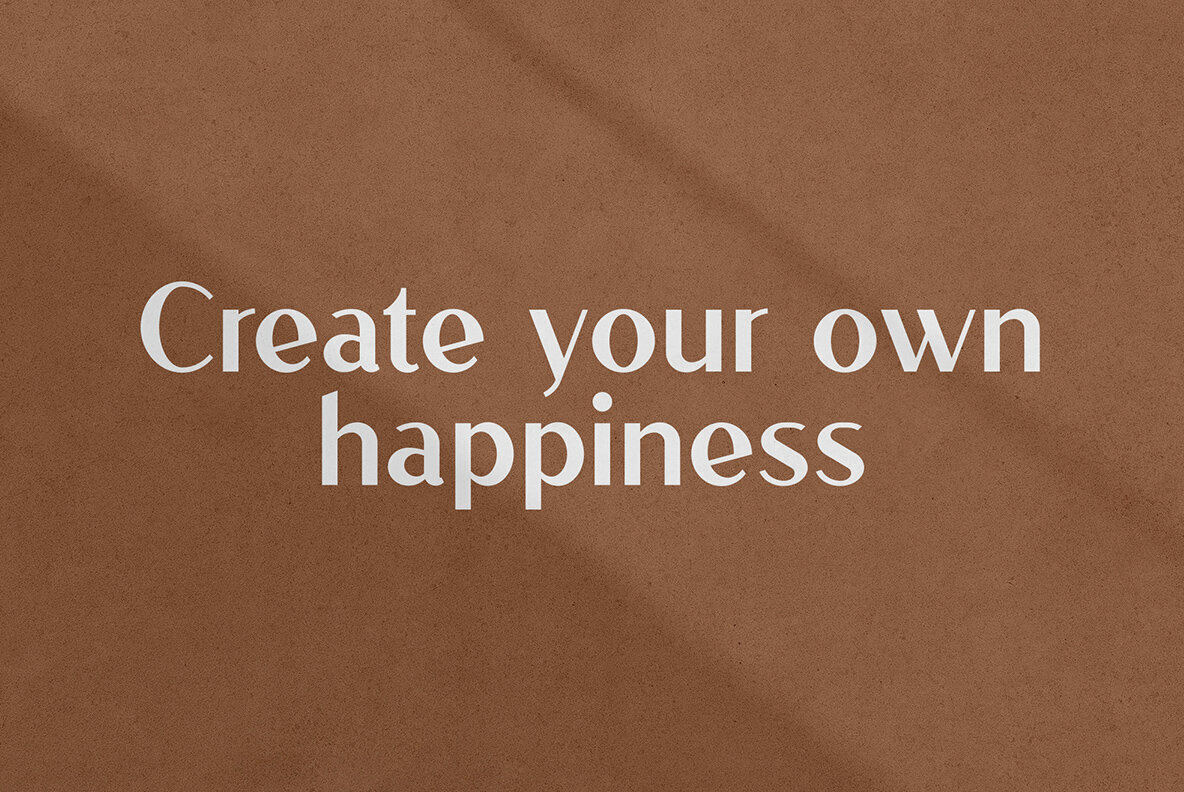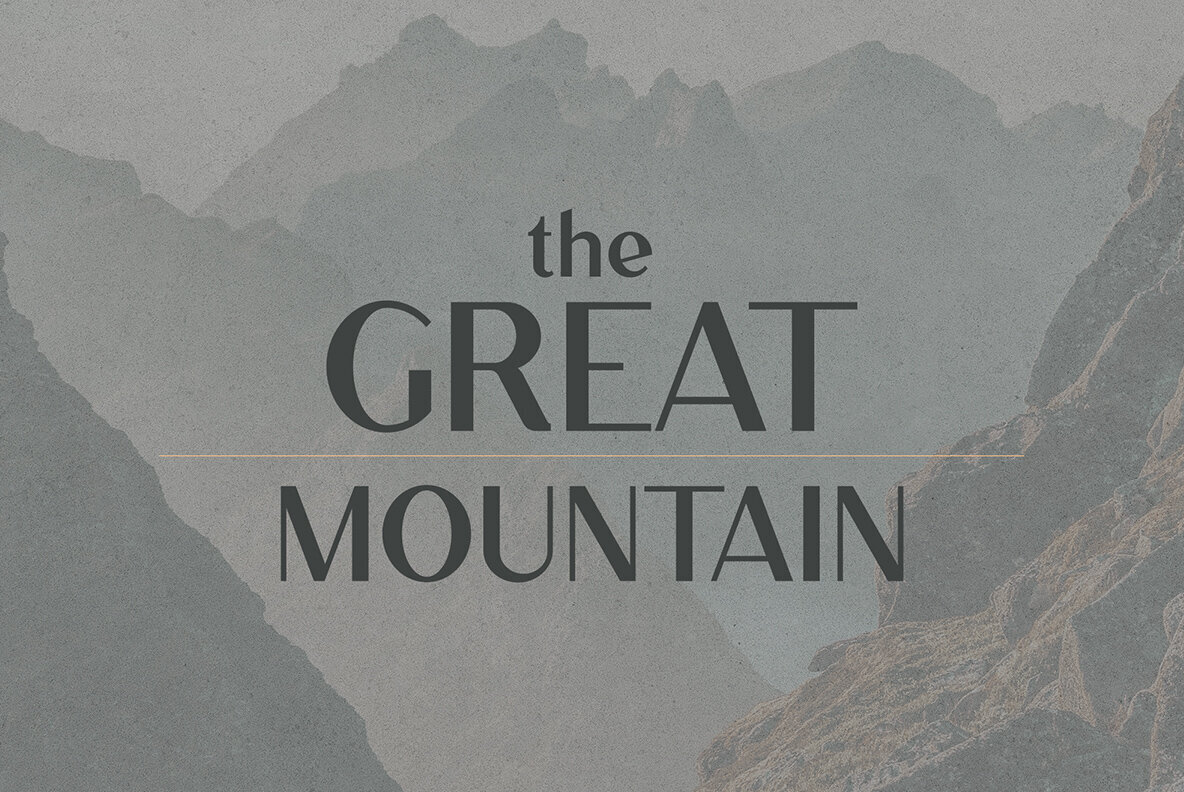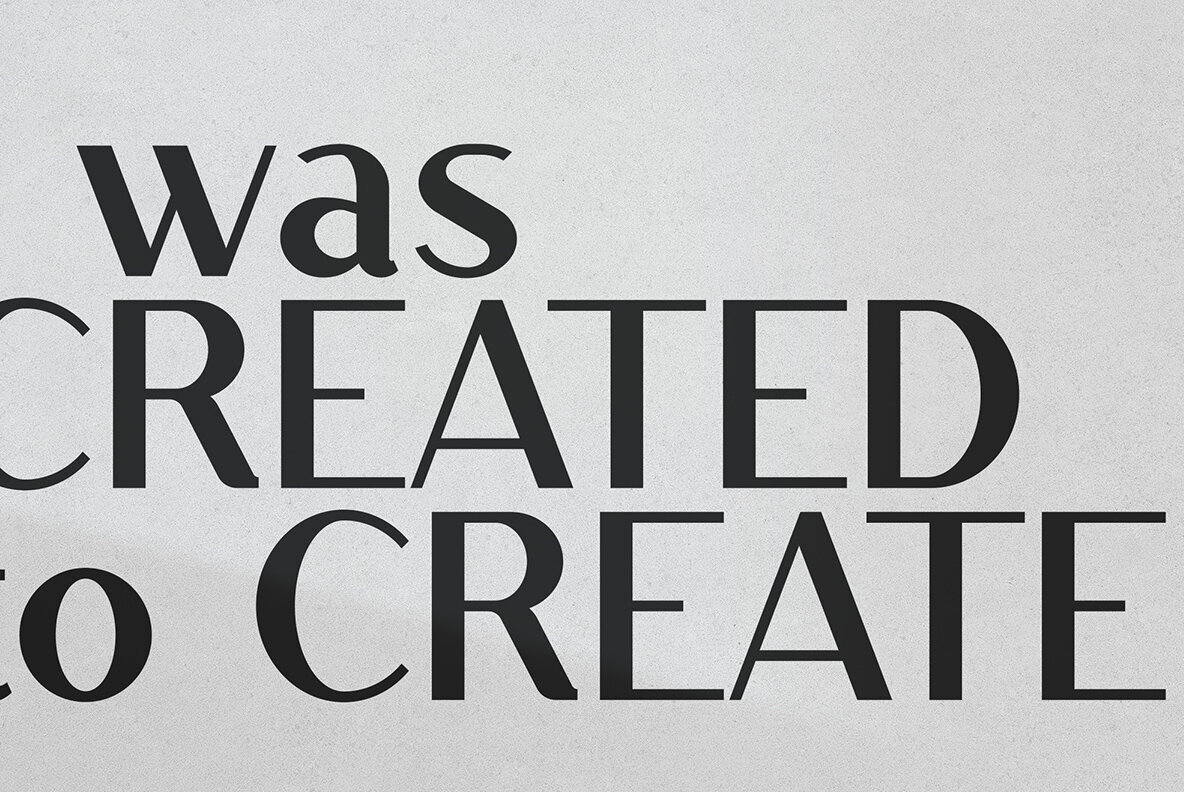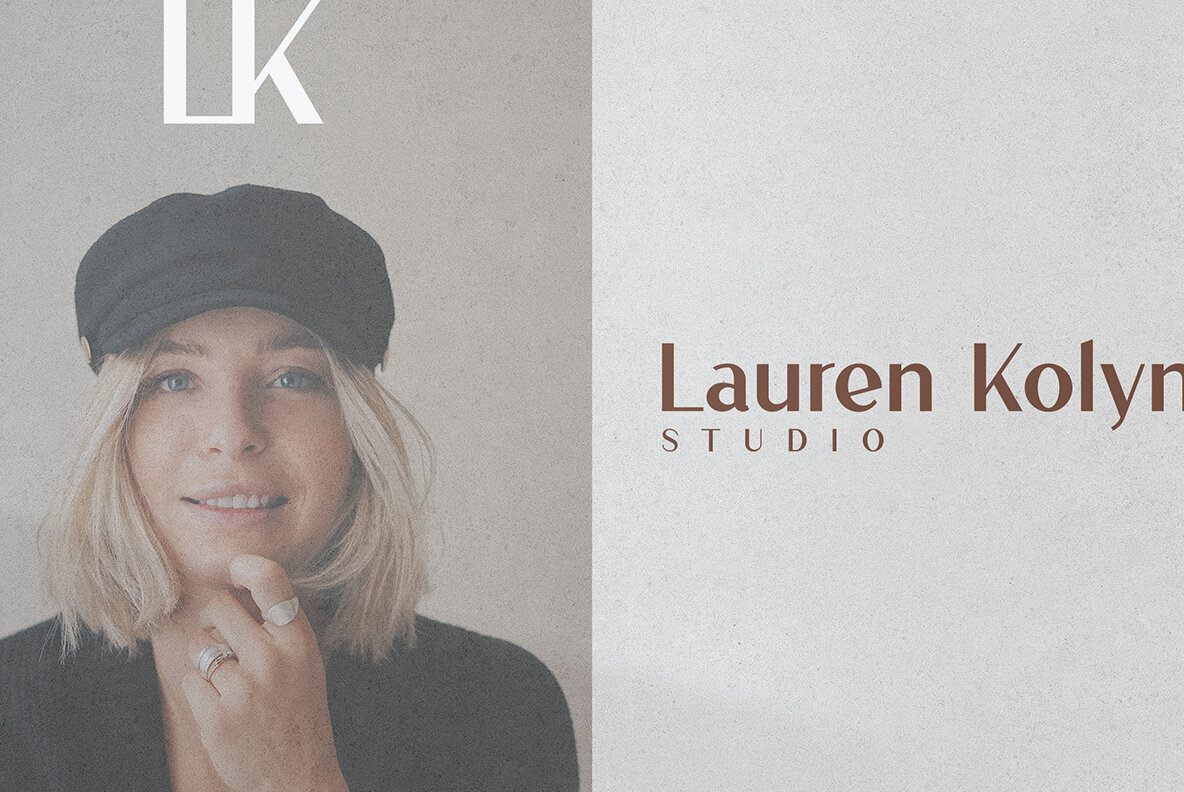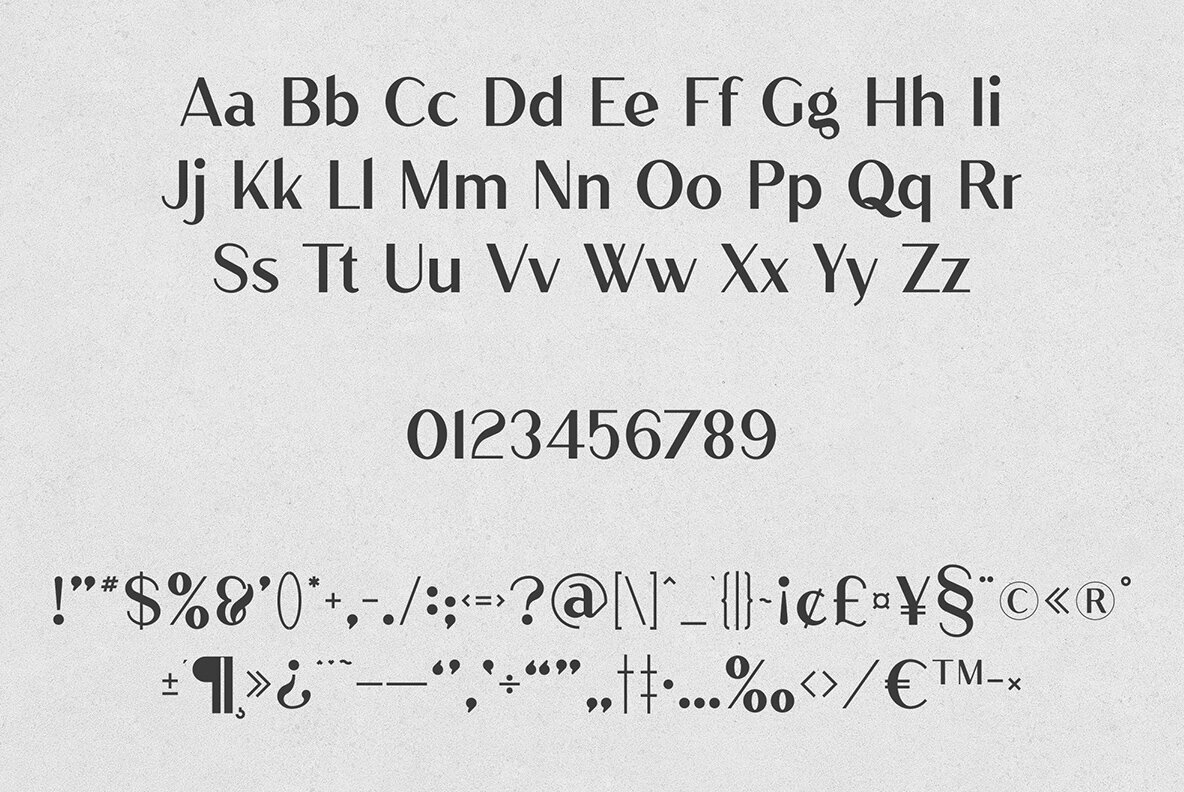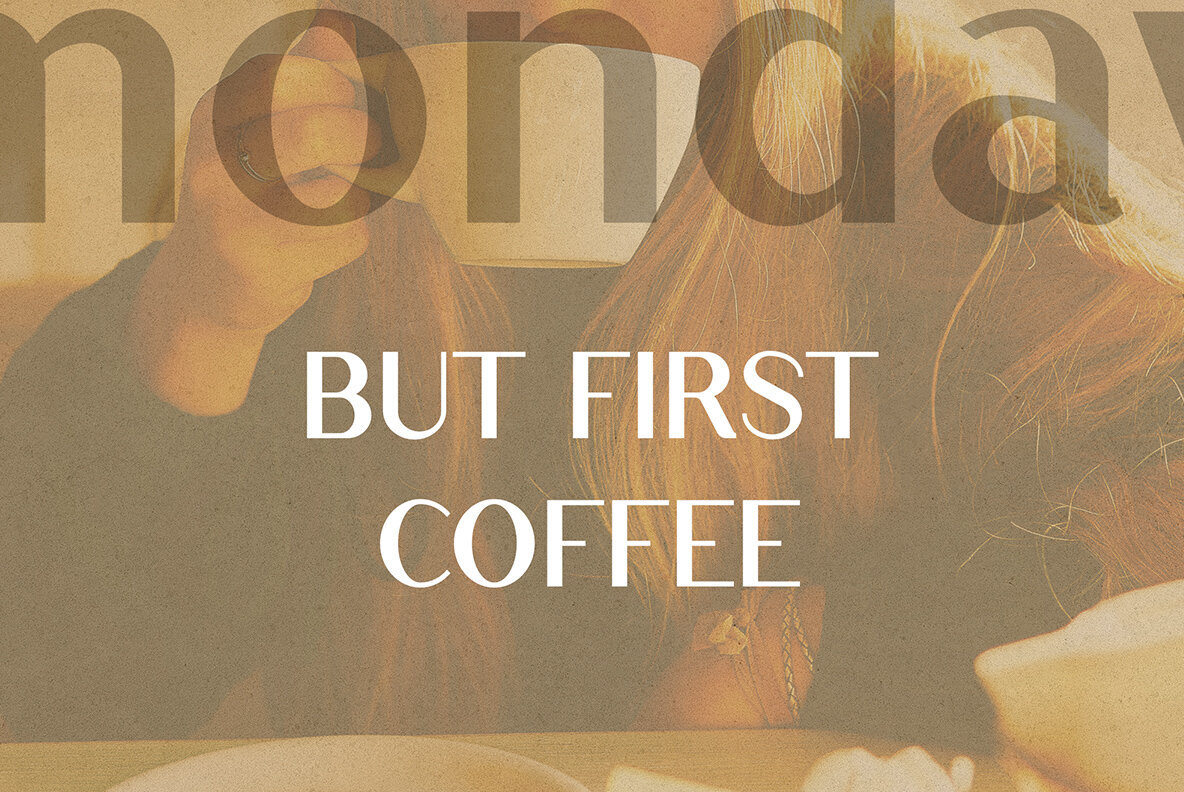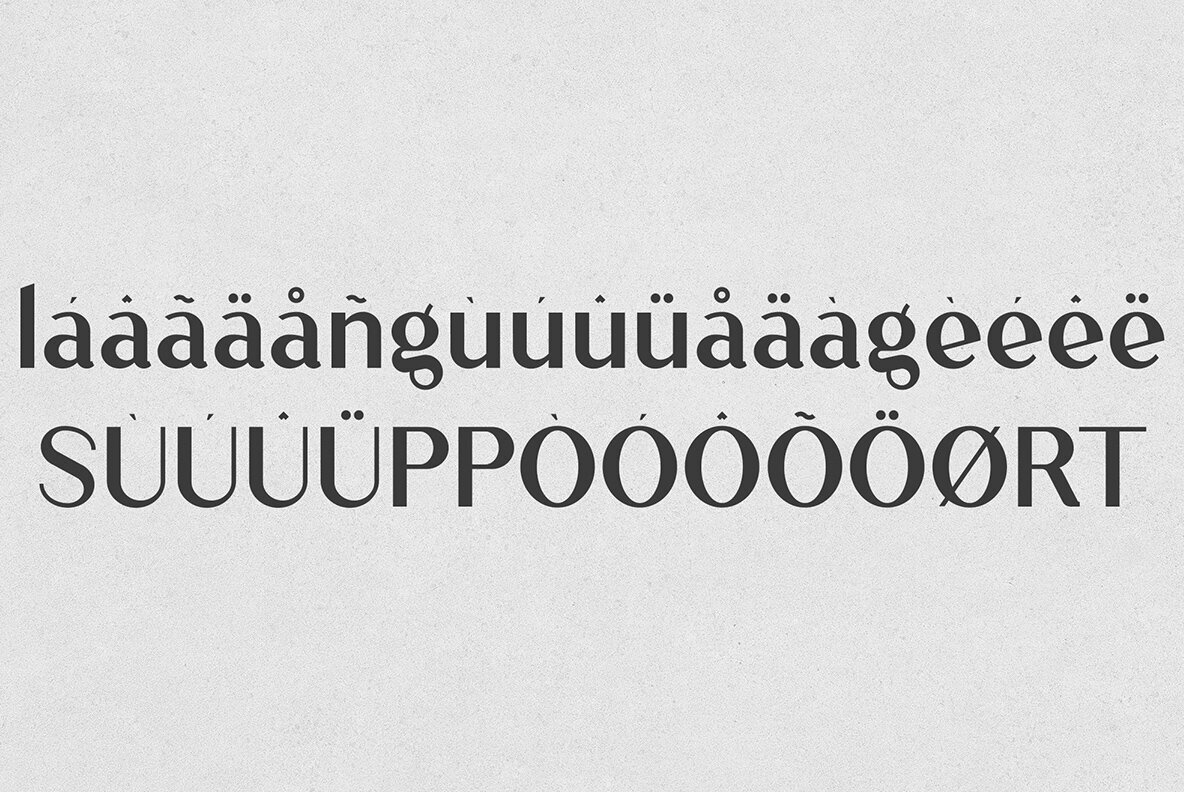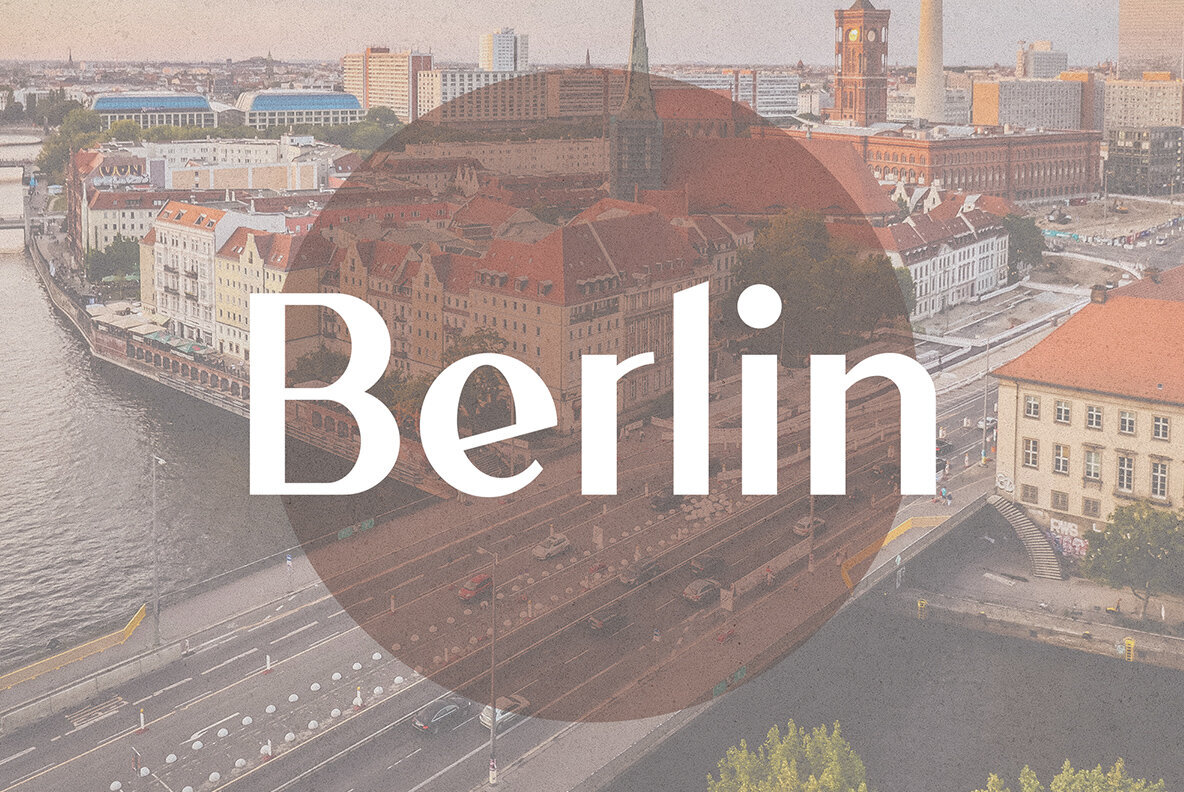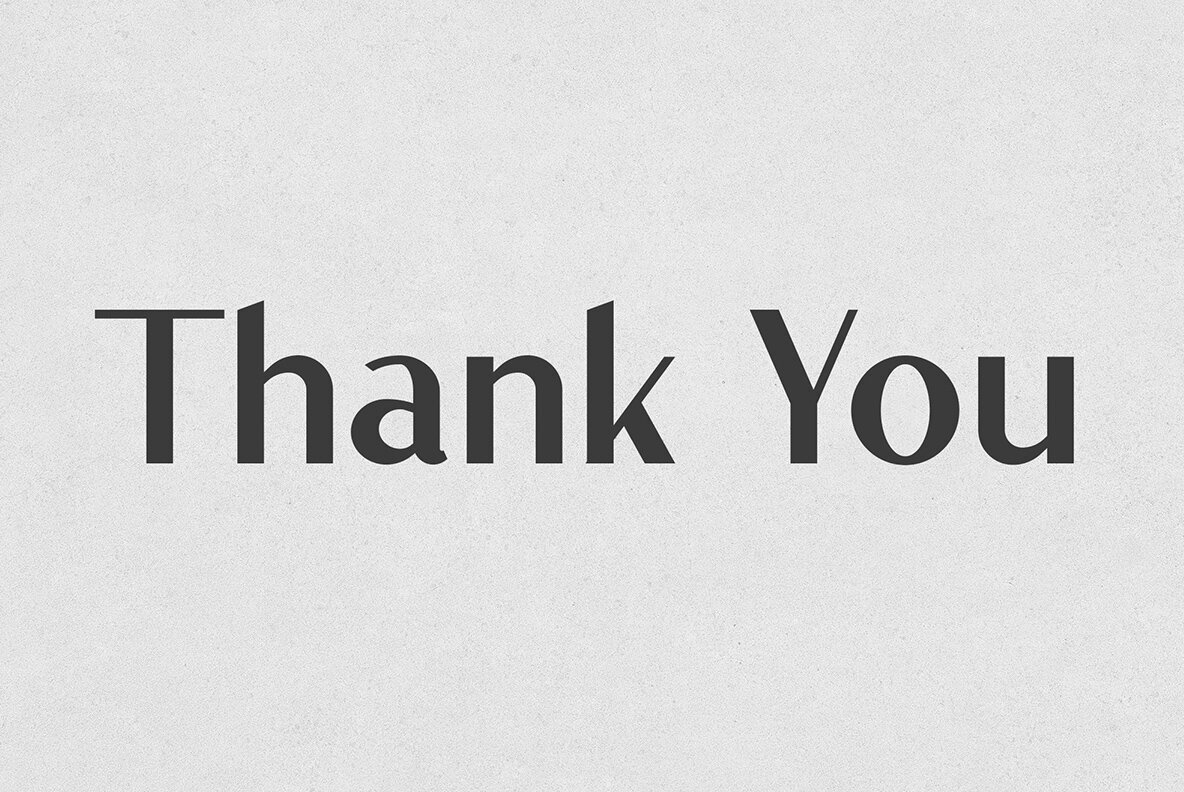
Ludic Font
Ludic Regular
Ludic offers a bold, vintage aesthetic with comprehensive multilingual support, perfect for capturing attention through typographic design. This font's versatility shines, whether used for large-scale projects or intricate small details, making it a valuable asset for any design toolkit. Ludic seamlessly adapts to a wide array of applications: from branding and home-ware designs to product packaging and magazine headers. Its vintage charm adds style and sophistication to any project, enhancing visual appeal and creating memorable designs.Ludic: A Bold Vintage Display Font